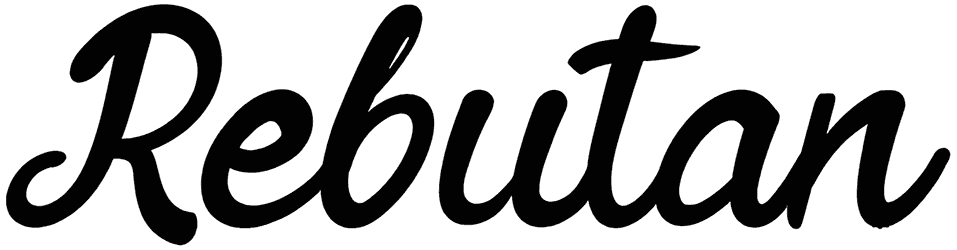
Rebutan Font
Here at Resource Boy, we can offer you fonts specific to your required mood. If you want a dynamic and organic look, we suggest you try Rebutan. A font is created by mixing handwritten fonts with cursive fonts to come up with such a design.
Rebutan is a handwritten script font.
It has an authentic modern calligraphy look making it perfect for branding and digital designs.